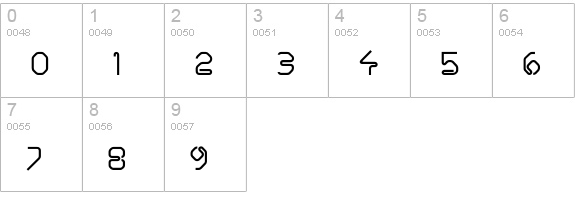
Hairpin Font Details
Hairpin font is a stunning display typeface that beautifully captures the essence of elegance and sophistication. Designed with intricate curves and delicate strokes, this font exudes a sense of grace and charm. With its unique and artistic design, Hairpin font is perfect for creating eye-catching headlines, logos, invitations, and more. Its versatility allows it to be used in a variety of creative projects, making it a must-have for designers, artists, and anyone looking to add a touch of refinement to their work. What sets Hairpin font apart is not only its exceptional aesthetics but also the fact that it is available for free. Yes, you read that right! Hairpin font can be freely downloaded at FontsMarket.com. This means that you can enjoy its beauty and elegance without having to spend a dime. Whether you're a professional designer or a hobbyist, Hairpin font will undoubtedly elevate your designs to new heights. Its intricate details and unique style will instantly draw attention and leave a lasting impression on anyone who sees it. So why wait? Don't miss out on this incredible opportunity to enhance your design projects with the mesmerizing beauty of Hairpin font. Download it for free today at FontsMarket.com and let your creativity soar.